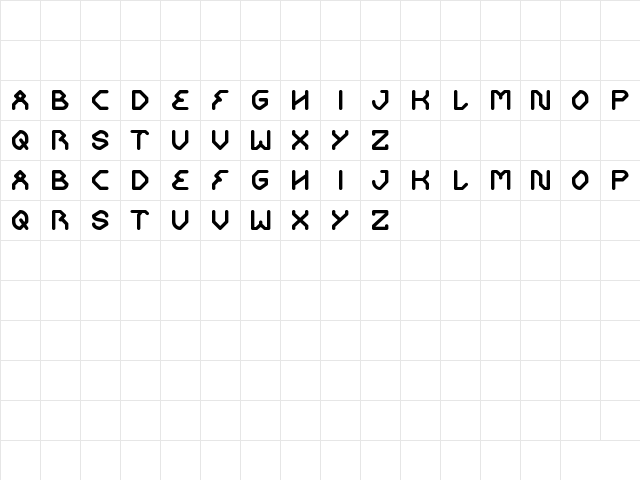
GET READY Regular
Design Context for GET READY Typeface
GET READY is a composed and adaptable typeface that performs quietly and consistently across a wide range of design contexts.